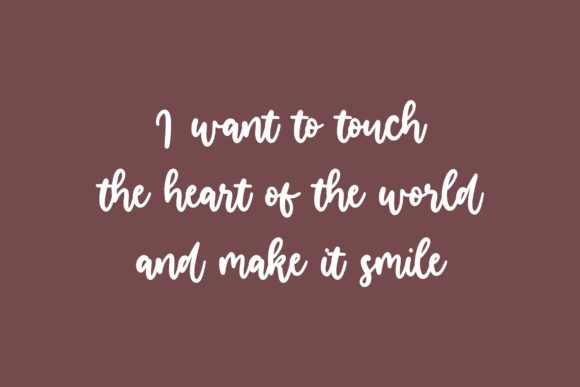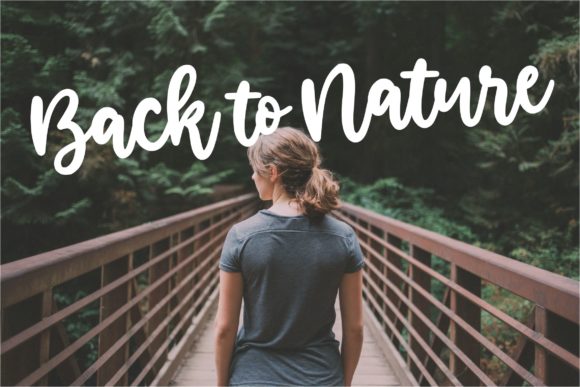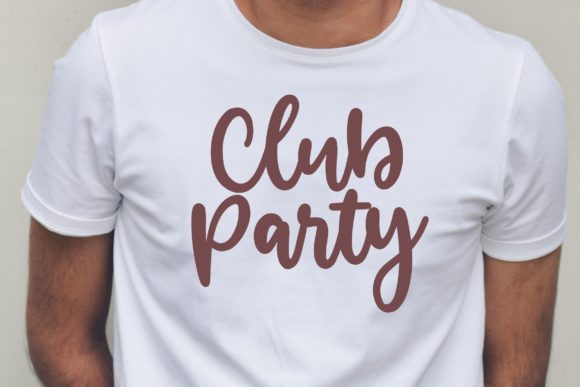
Introduction to Smilestar Font
You know that moment when you’re working on a creative project and you need the perfect font to elevate your design? For many of us, it’s a game-changer. The right font can make all the difference between a good design and a great one.
That’s where the Smilestar Font comes in – a truly outstanding handwritten font that simplifies elegance into one beautiful package. Whether you’re working on a design project that needs a high-quality font or just want to add a touch of personality to your branding, the Smilestar Font is an excellent choice.
What sets the Smilestar Font apart is its versatility – it looks stunning on busy backgrounds and as a standalone headline, making it an invaluable resource for designers who want to add a creative touch to their work.
Key Features of Smilestar Font
- High-quality, professional design perfect for creative projects, including business cards, logos, and brochures.
- Comes with a transparent background, making it easy to customize and combine with other design elements.
- Features a unique and modern design style, perfect for adding a touch of personality to your creative project.
- Designed with a high resolution of 300 DPI, ensuring that your text and graphics will look crisp and clear, even at large sizes.
- Includes a range of font sizes and styles, from bold and playful to elegant and sophisticated, giving you the flexibility to match your design needs.
Honest Review: Smilestar Font
As a designer, I’m always on the lookout for high-quality design resources that can elevate my creative projects. The Smilestar Font is one such resource that I’ve been experimenting with, and I’m excited to share my thoughts on it.
Here are some things that work well: ✨ The Smilestar Font is incredibly versatile, with a wide range of weights and styles to choose from. The font is also highly customizable, allowing me to adjust the spacing and kerning to suit my specific design needs. Plus, it’s a free download, which is a huge bonus!
Another benefit is that the Smilestar Font comes with a transparent background, making it easy to layer with other design elements. This has been particularly useful for creating complex compositions that require precision and control.
Now, here are some limitations: ⚠️ While the Smilestar Font is a great resource, it’s not without its flaws. The font can be a bit overused, and some of the styles may not be suitable for certain design projects. Additionally, the font’s licensing terms may be a bit restrictive for commercial use.
Overall, I’d say that the Smilestar Font is a solid choice for designers who need a reliable and versatile font for their creative projects. While it may not be perfect, it’s a great resource that’s definitely worth exploring.
Tips for Getting the Most Out of Smilestar Font
To get the most out of the Smilestar Font, experiment with different font sizes, colors, and styles to find the perfect fit for your creative project.
The Smilestar Font is ideal for use in logos, branding materials, and other creative projects where a high-quality, unique font is needed.